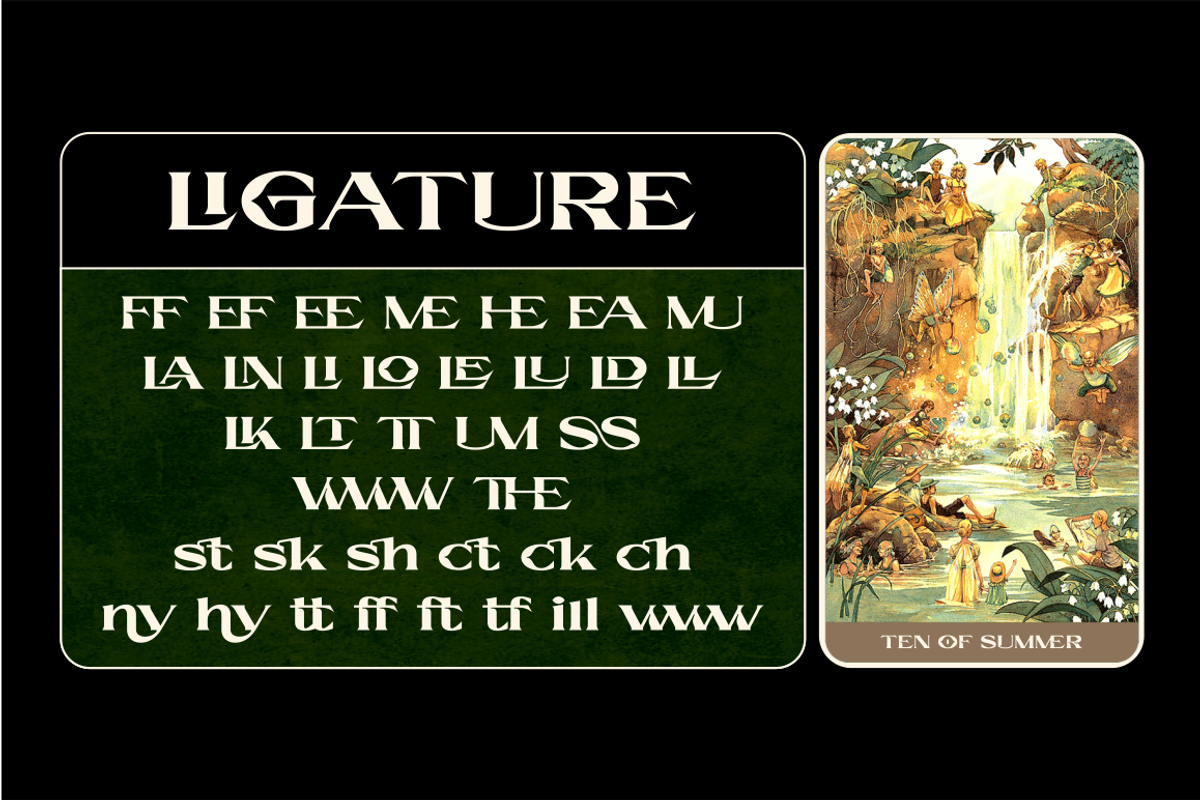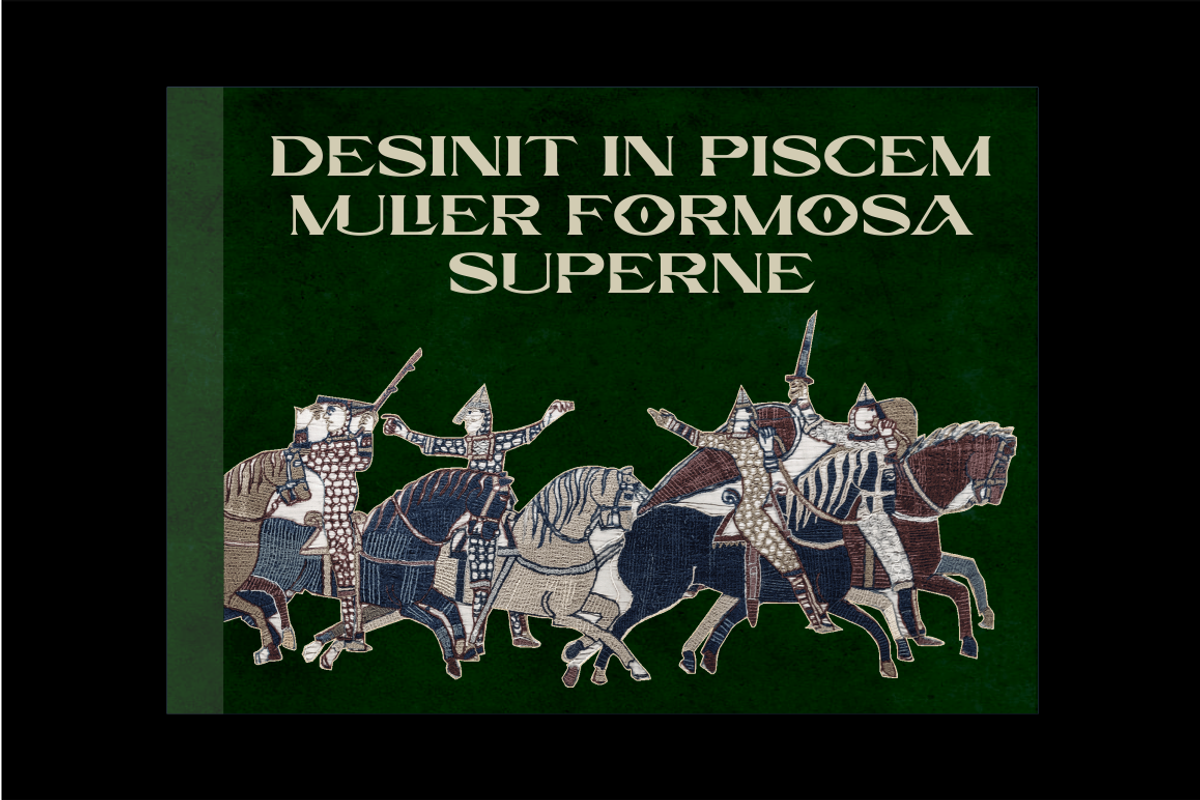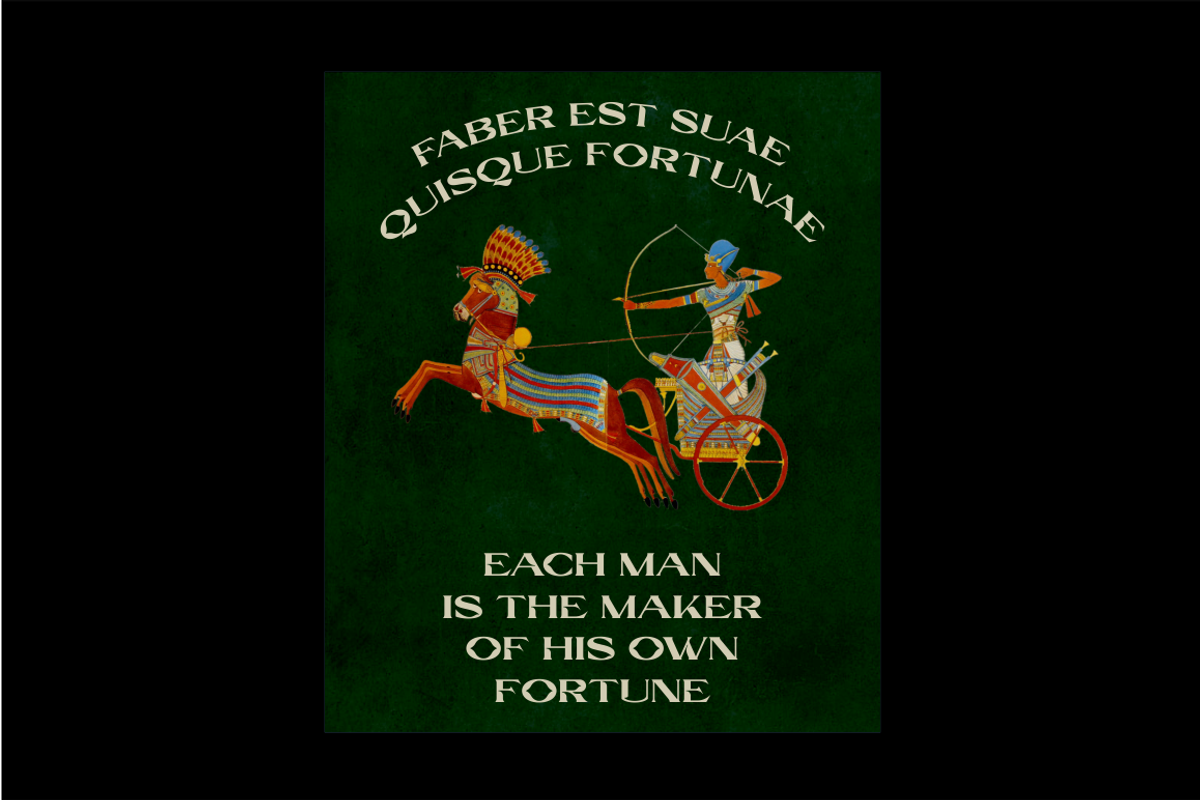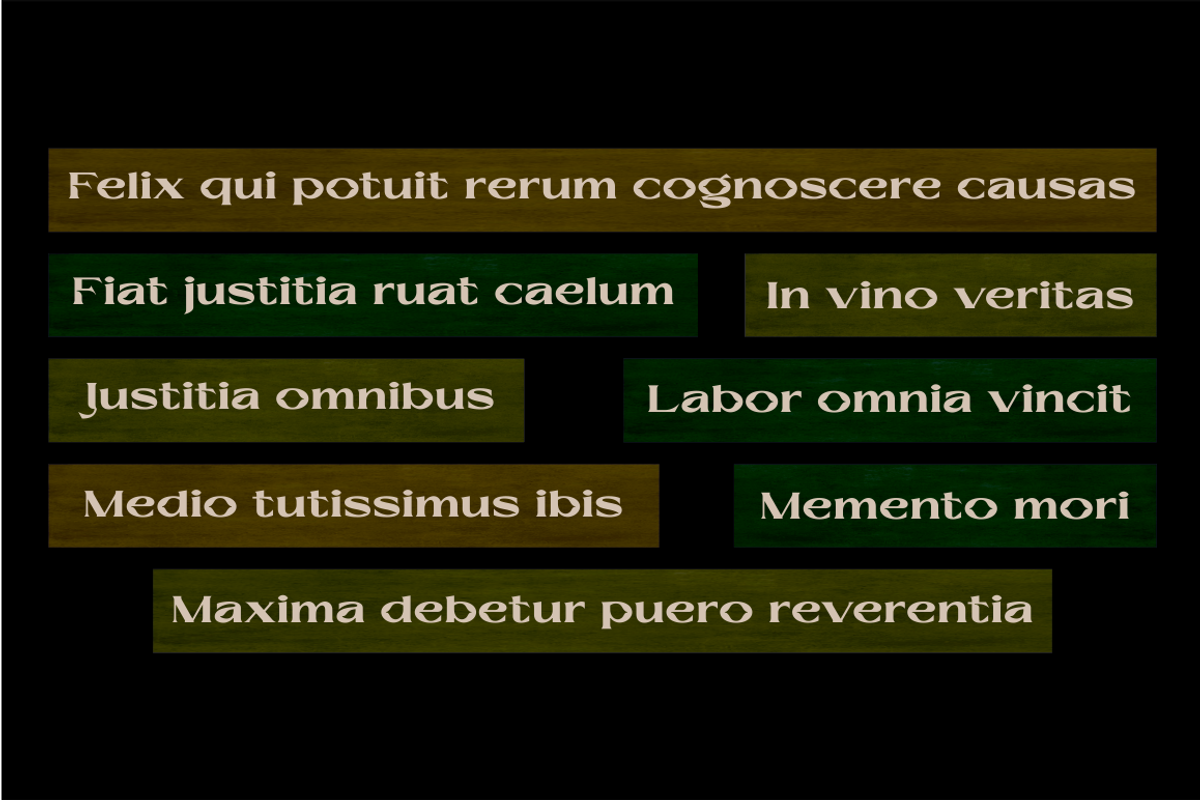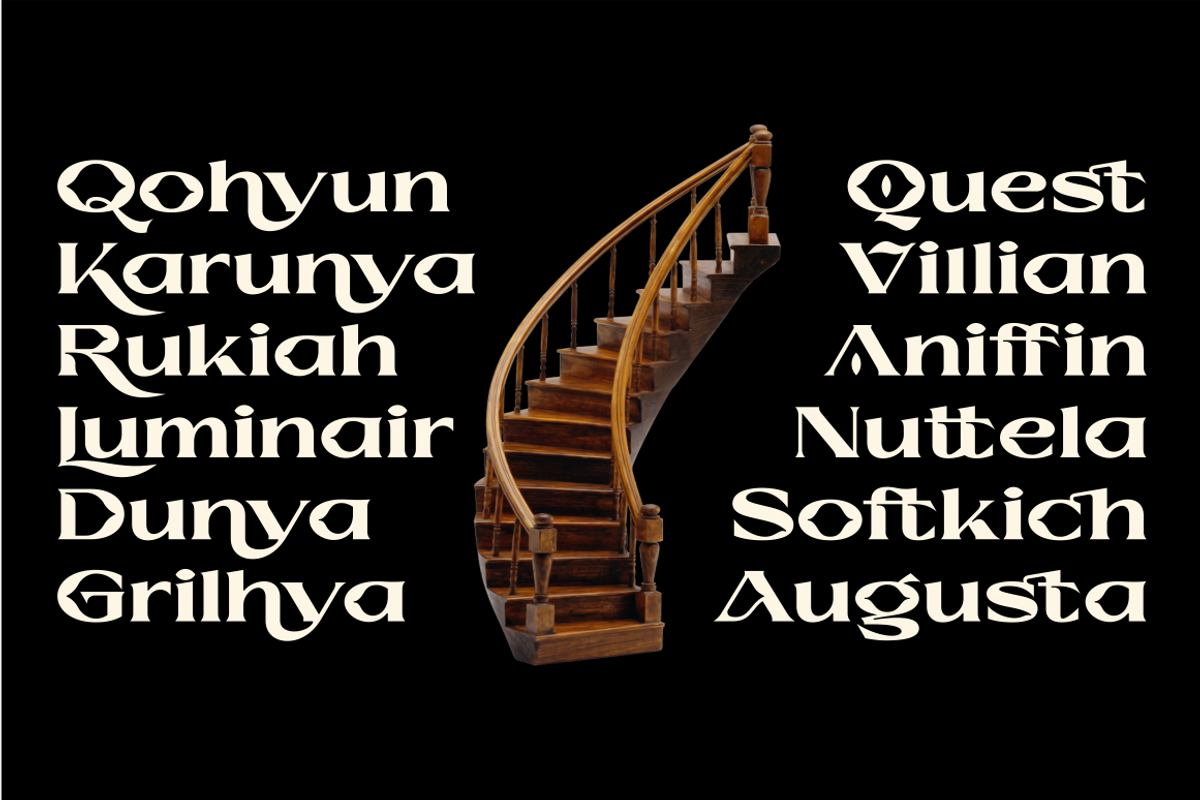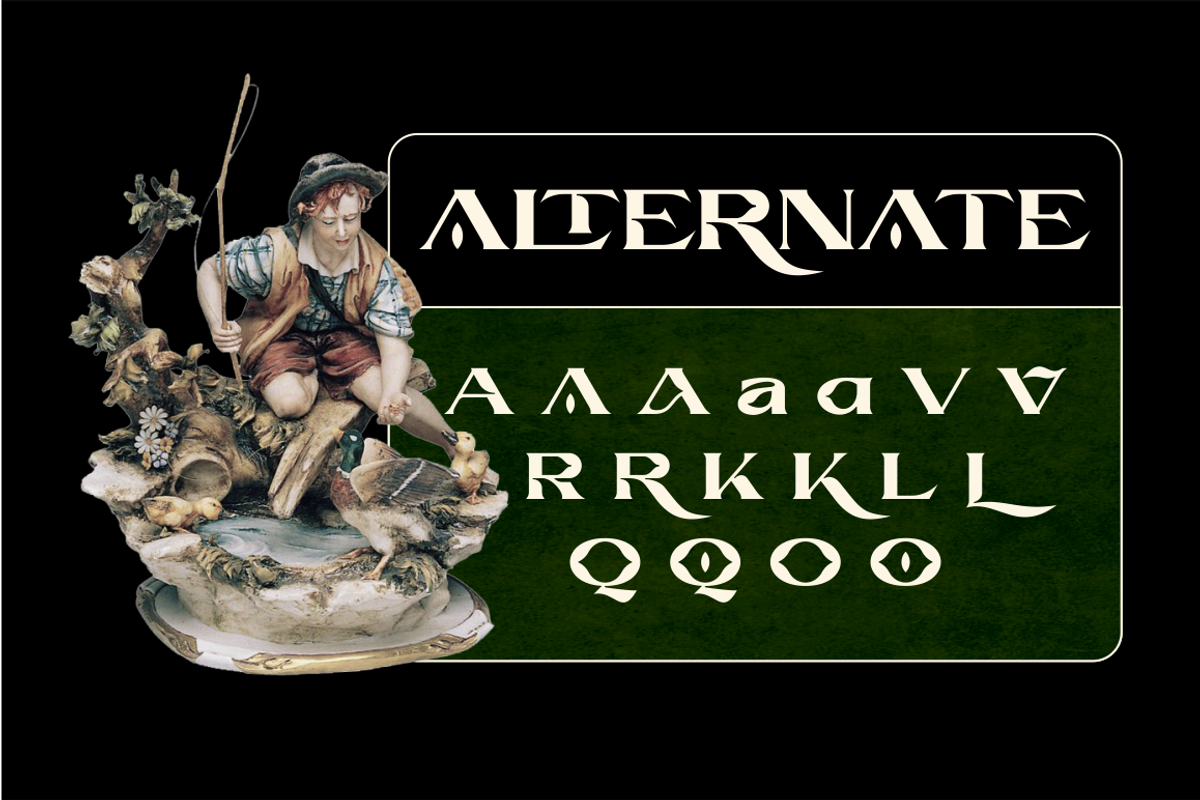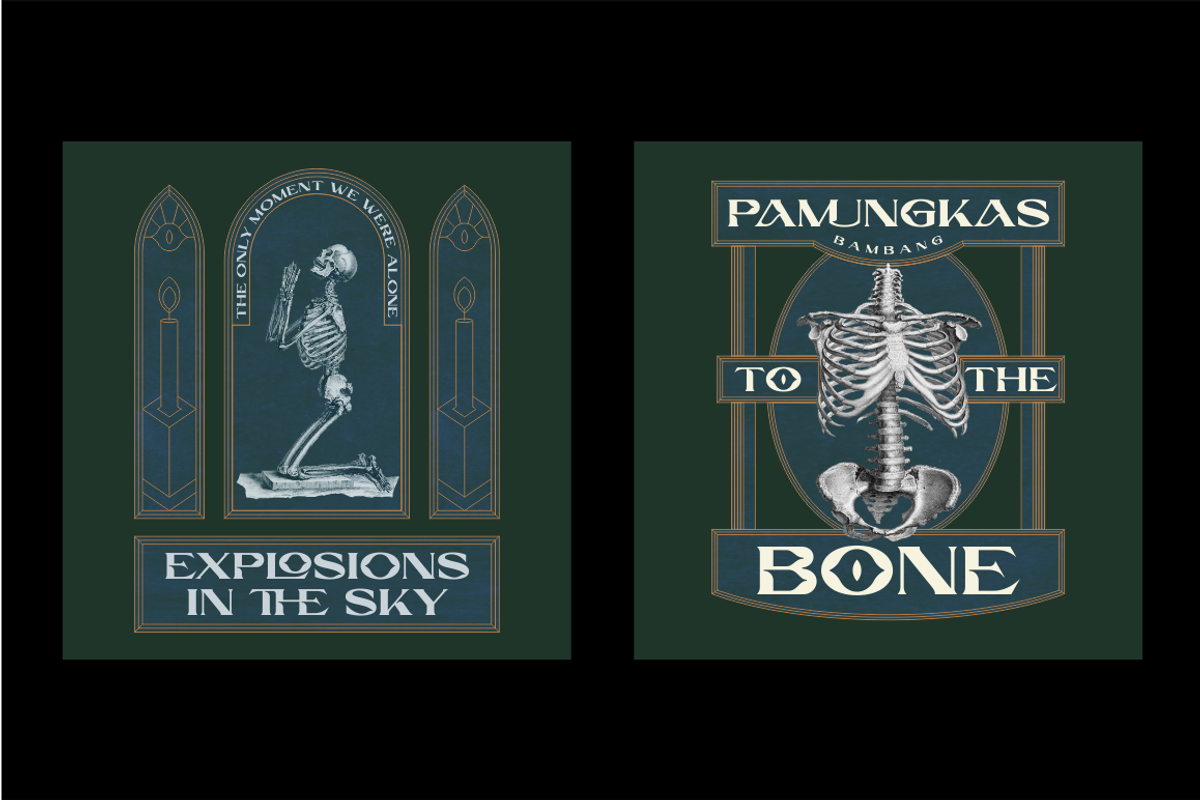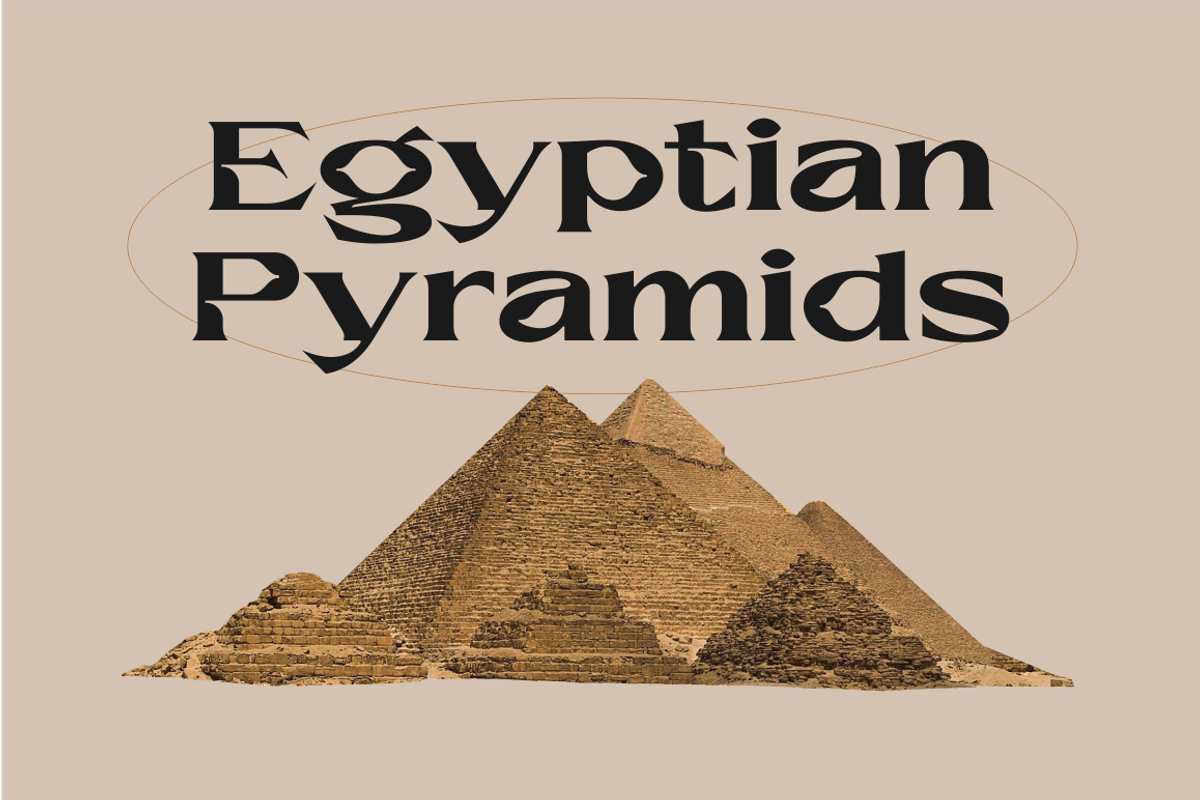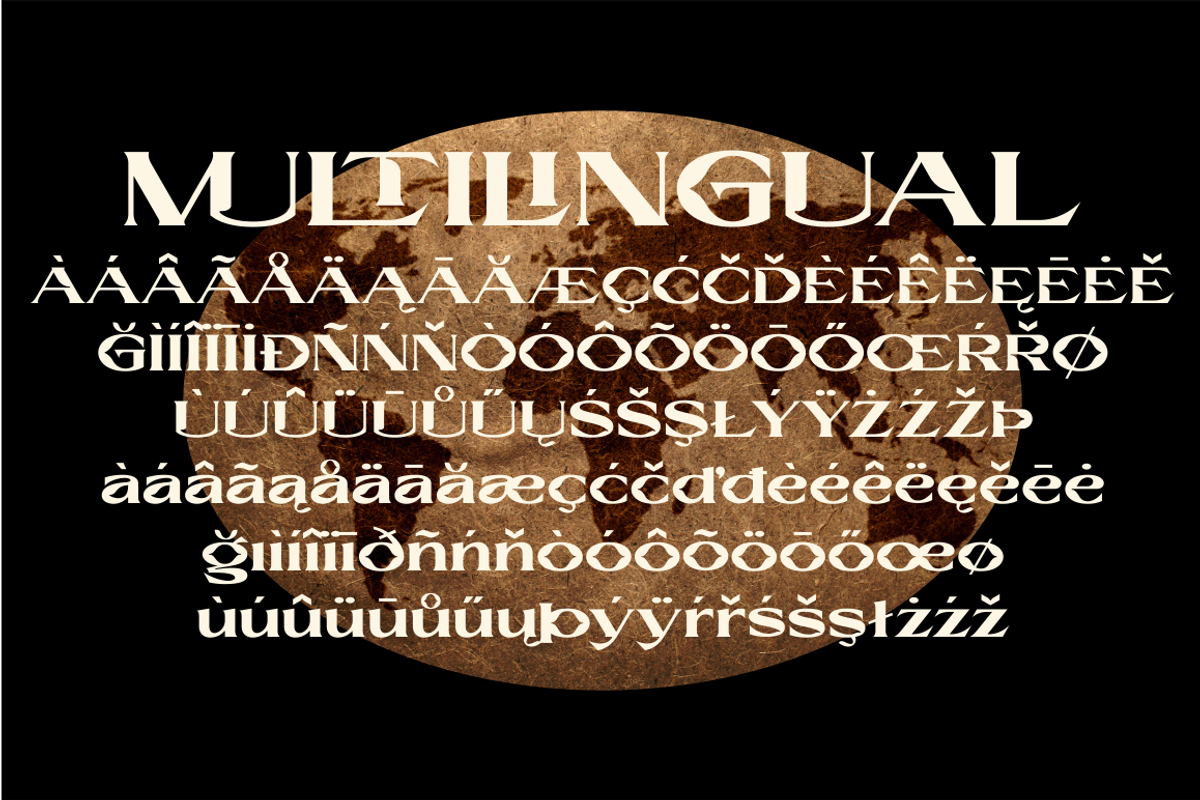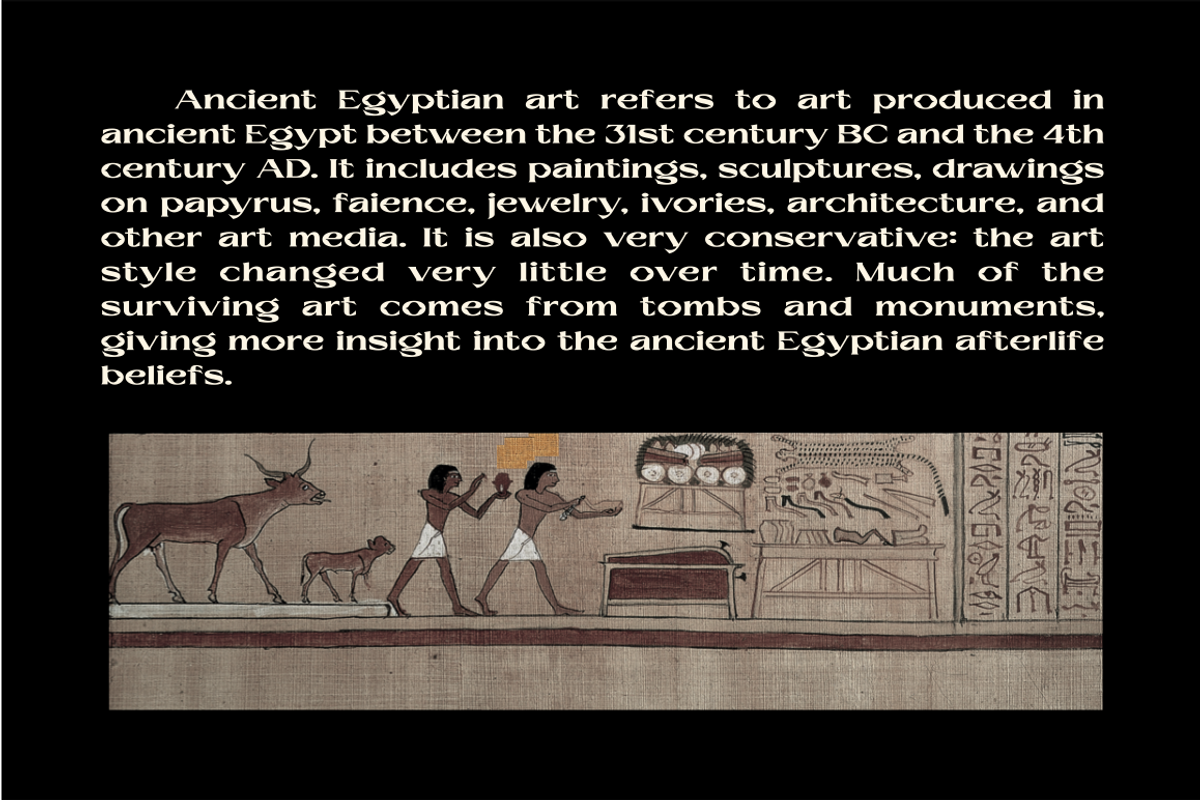
OLIEVA - bonus poster
Olieva is a versatile, bold and unique serif font. Was inspired by Medieval movie and Art of ancient Egypt, Olieva has a unique style with stylistic, alternates, ligatures and supports multilingual languages. Create unique & beautiful logotype, use it as an elegant solution for your next magazine layout, or choose Olieva for any graphics that require a sleek look with a elegant flair.